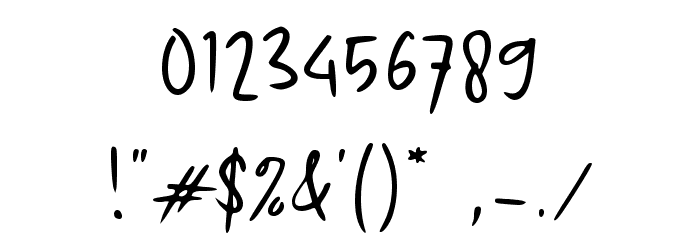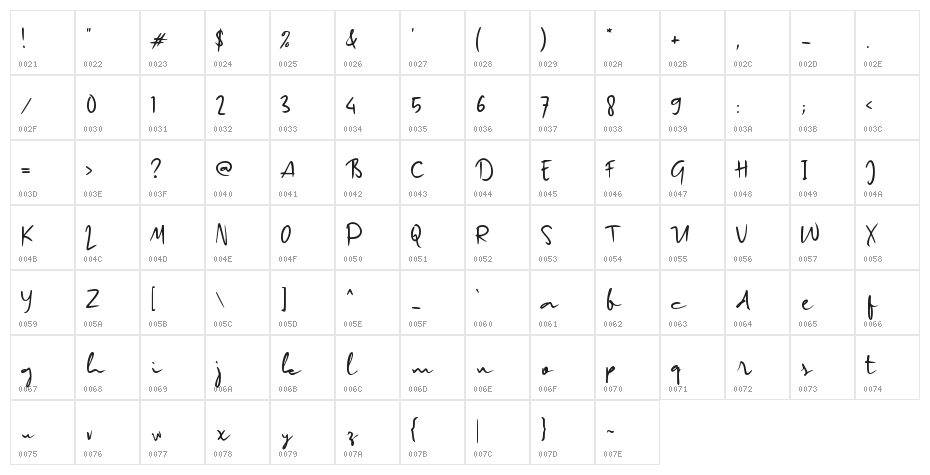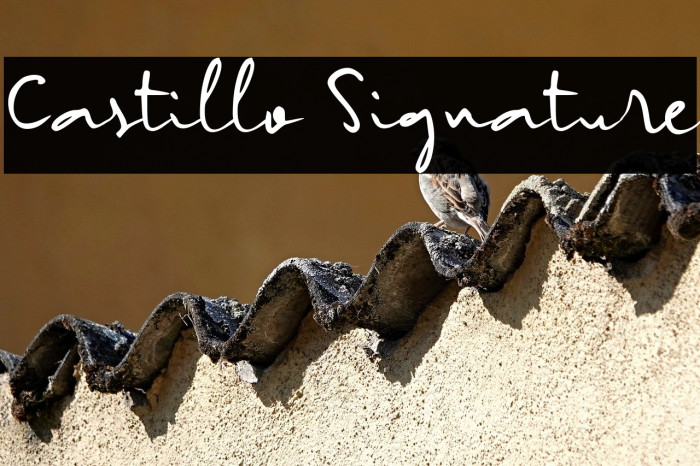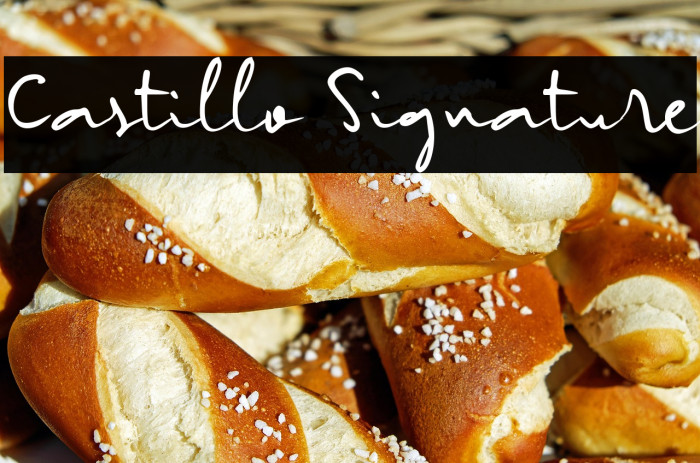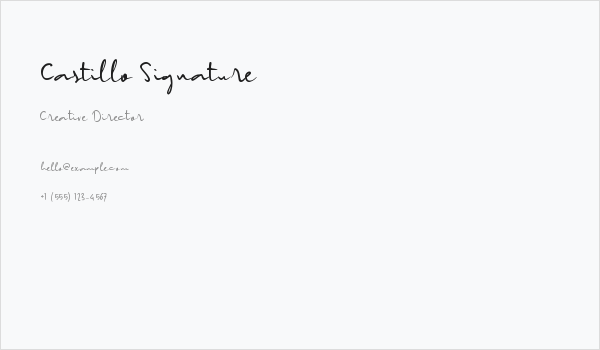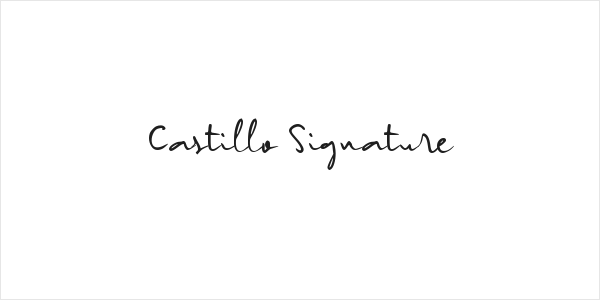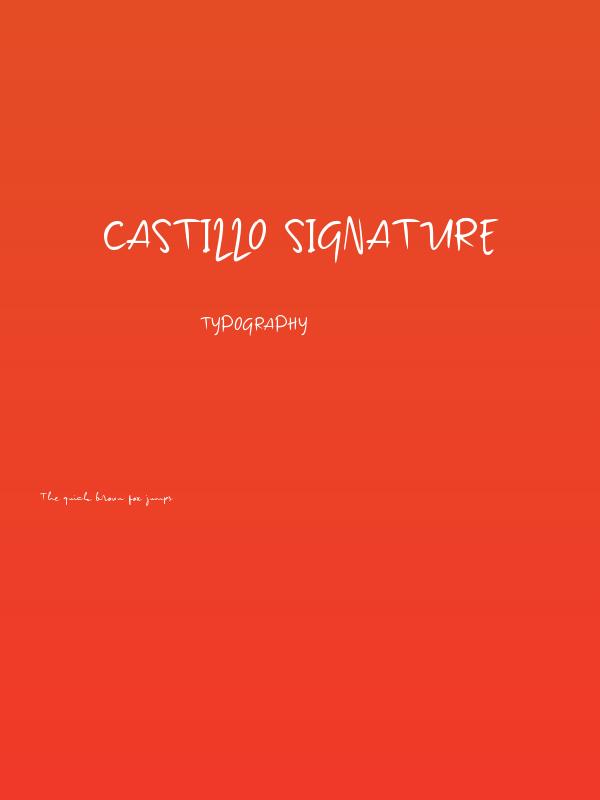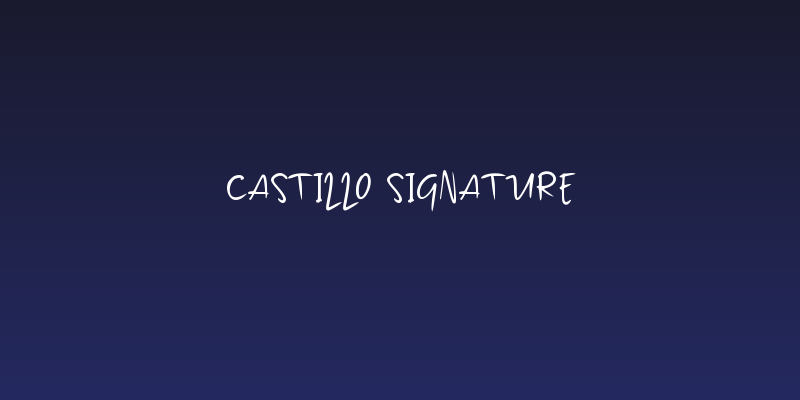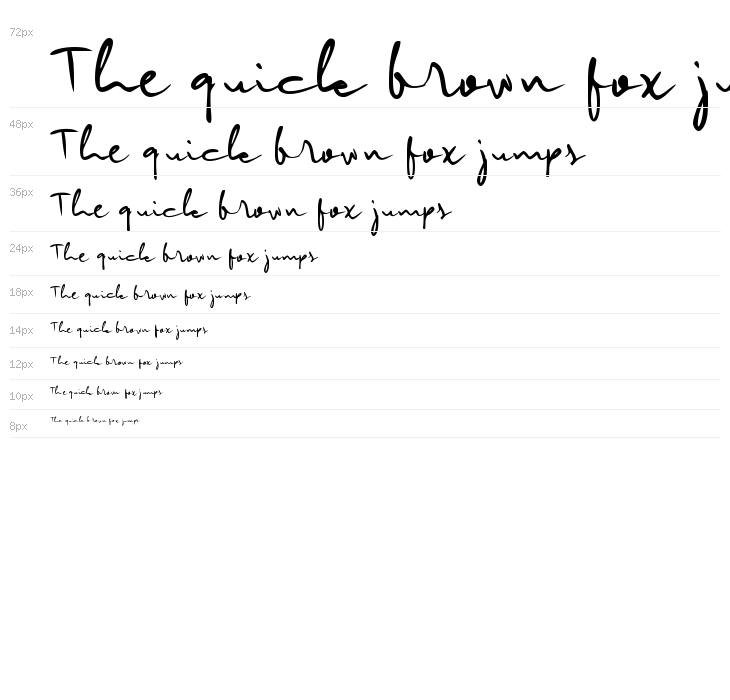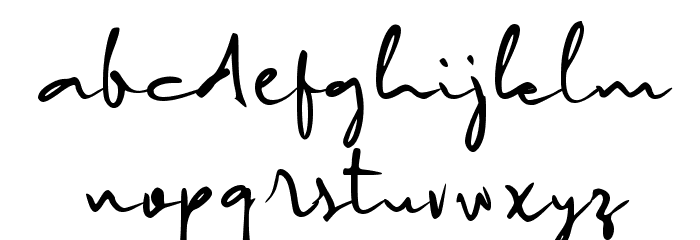
Castillo Signature Font
Castillo Signature Description
This font exudes a personal and artistic flair, reminiscent of a handwritten signature. The uppercase letters are bold and slightly irregular, giving them a dynamic and lively appearance. The lowercase letters flow smoothly with a cursive style, adding elegance and sophistication. Numbers and special characters maintain the same handwritten aesthetic, ensuring consistency across all elements. The overall design is both expressive and stylish, making it ideal for projects that require a personal touch.
| Use Case | Logos, Invitations, Personal branding |
| Proposed Projects | Ideal for personal branding, invitations, greeting cards, and artistic projects that require a personal touch. |